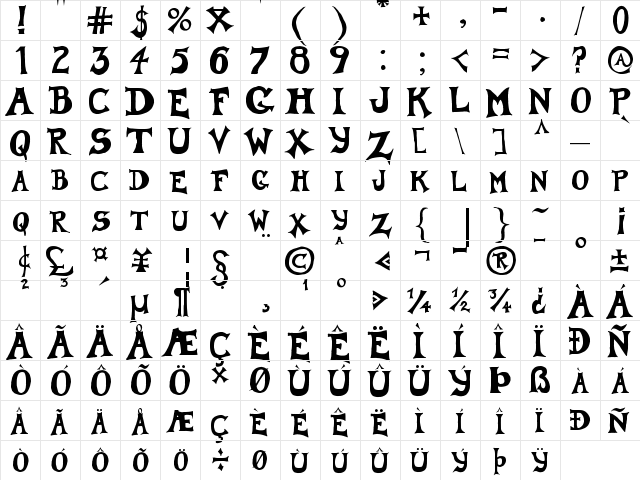
Anfalas Regular
| Designer | Bill Roach |
Design Context for Anfalas Typeface
Anfalas is a composed and adaptable typeface that performs quietly and consistently across a wide range of design contexts.